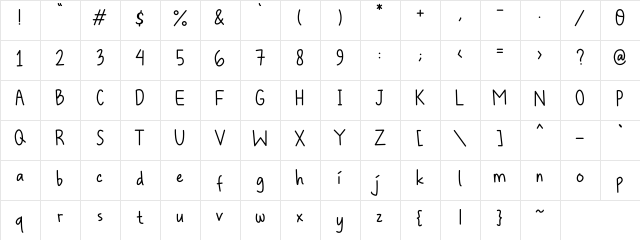
JenangKudus Kudus
Design Context for JenangKudus Typeface
JenangKudus is a composed and adaptable typeface that performs quietly and consistently across a wide range of design contexts.
Pro Tip: Pair JenangKudus with a font of contrasting weight or personality to build a more expressive typographic hierarchy.